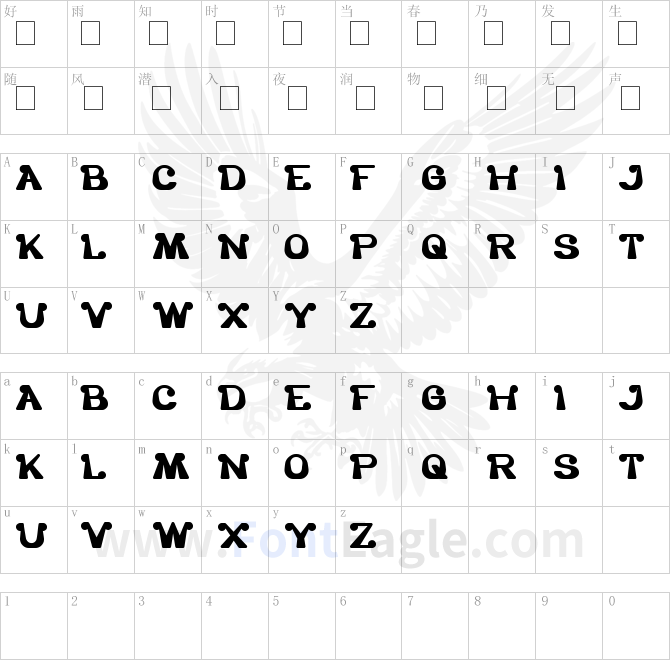
THE-ONE-AND-ONLY-ME is a great font, widely used in graphic design, single-page menu design, poster design and other fields, and is deeply loved by designers.THE-ONE-AND-ONLY-ME download.